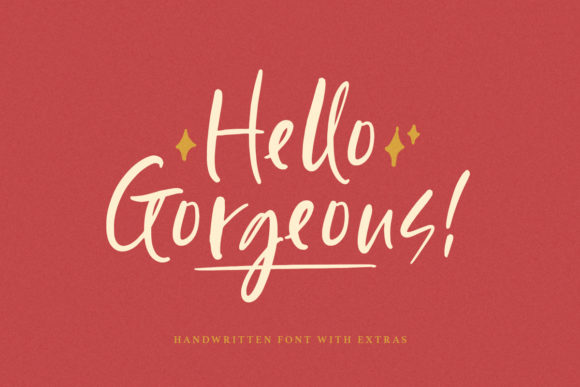
Introducing Hello Gorgeous Font: A Script Font That Embraces Charm and Elegance
In a world of digital creations, fonts hold the power to transform words into captivating expressions. Meet Hello Gorgeous, a script font that dances across your designs with a touch of playfulness and refinement. Created by the talented saridezra, this handwritten font exudes warmth, charisma, and a sprinkle of whimsy that is sure to leave a lasting impression.
Hello Gorgeous Font: Where Creativity Meets Visual Delight
Its delicate strokes and graceful curves invite you to explore a realm of endless possibilities. Whether you're crafting heartfelt messages, designing eye-catching logos, or creating stunning social media graphics, Hello Gorgeous Font effortlessly adds a touch of elegance and charm.
A Font Designed to Inspire and Elevate Your Creations
With Hello Gorgeous Font, you're not just downloading a font; you're inviting a muse into your creative space. Its versatility knows no bounds, making it a perfect companion for projects that demand a personal touch.
Immerse yourself in the world of Hello Gorgeous Font and let your imagination run wild. Experience the joy of creating designs that resonate with your audience, leaving them captivated by the beauty of your words.
More Than Just a Font - A Gateway to Creative Expression
Hello Gorgeous Font isn't merely a collection of letters and symbols; it's an artistic tool that unlocks your creative potential. Its enchanting style adds depth and character to your designs, transforming them into visual masterpieces.
Whether you're a seasoned designer or just starting your creative journey, Hello Gorgeous Font is the perfect companion for your artistic endeavors. Let your designs blossom with charm, grace, and a hint of delightful surprise.